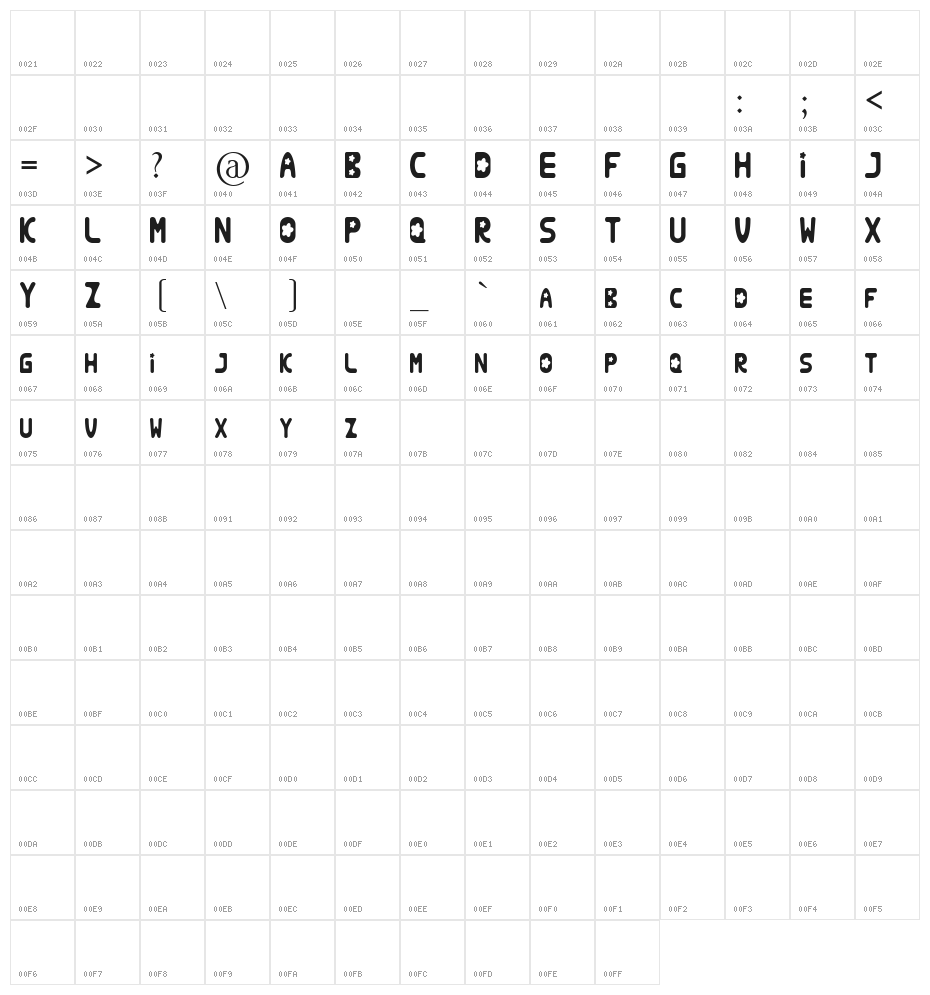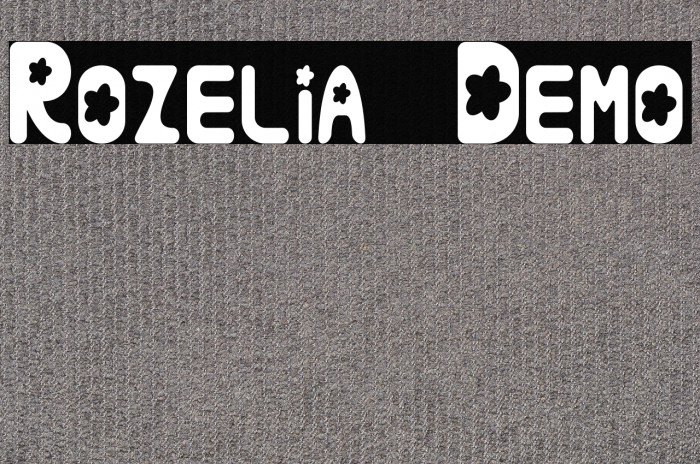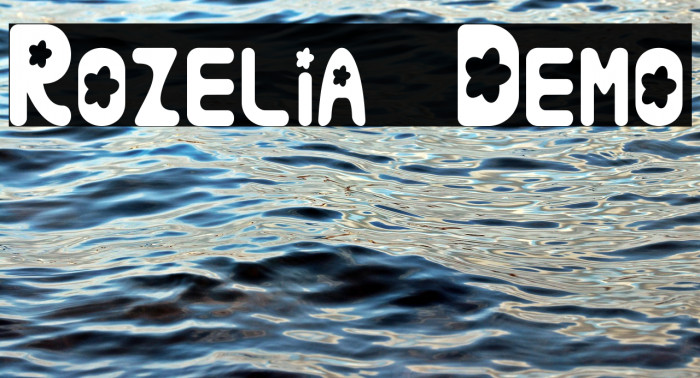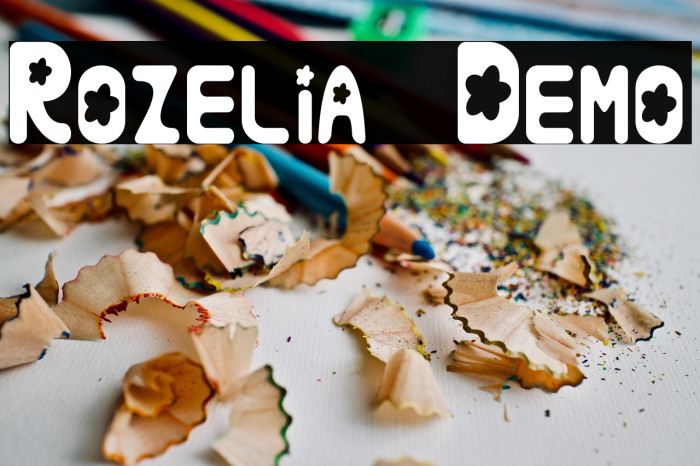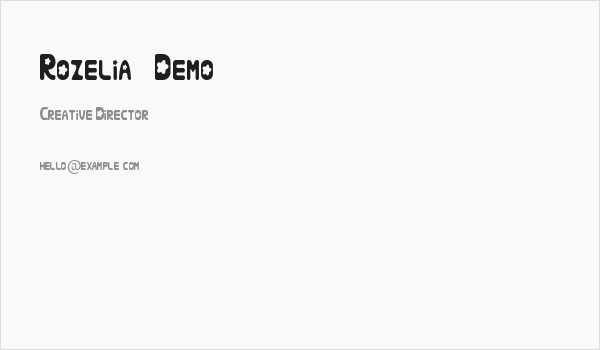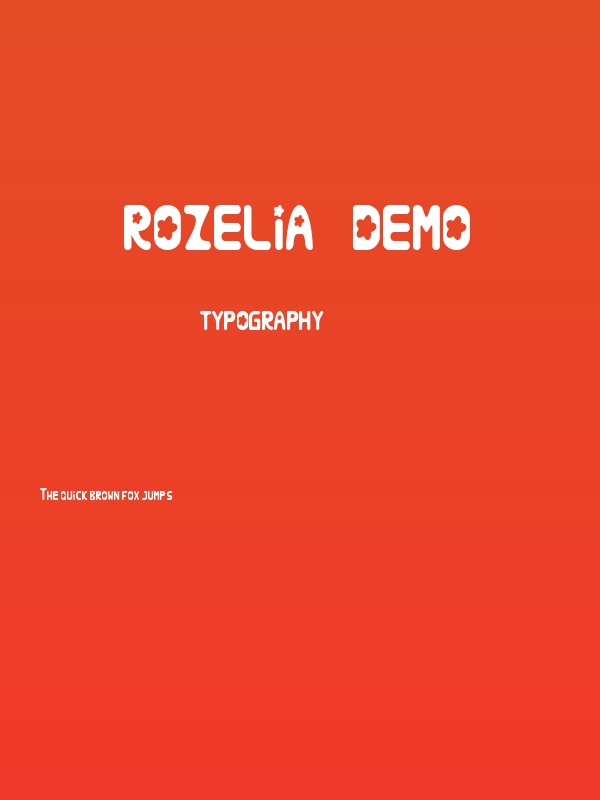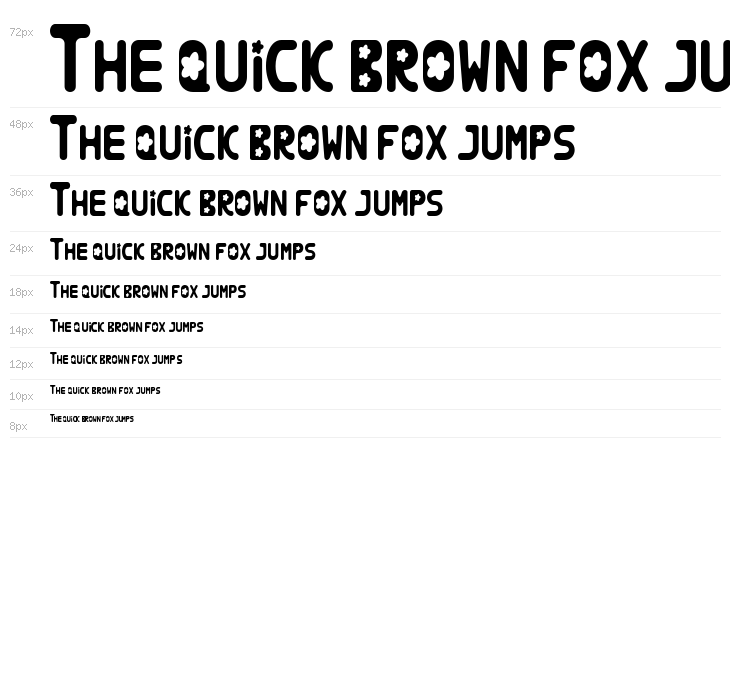
Rozelia - Demo Font
Rozelia - Demo Description
This playful and decorative font features bold, rounded characters with unique floral cutouts integrated into several letters, adding a whimsical and charming touch. The design is consistent across both uppercase and lowercase letters, maintaining a cohesive and visually appealing style. The font's thick strokes and rounded edges contribute to its friendly and approachable appearance, making it suitable for a variety of creative projects. Its distinctive style is eye-catching and memorable, perfect for designs that aim to stand out and convey a sense of fun and creativity.